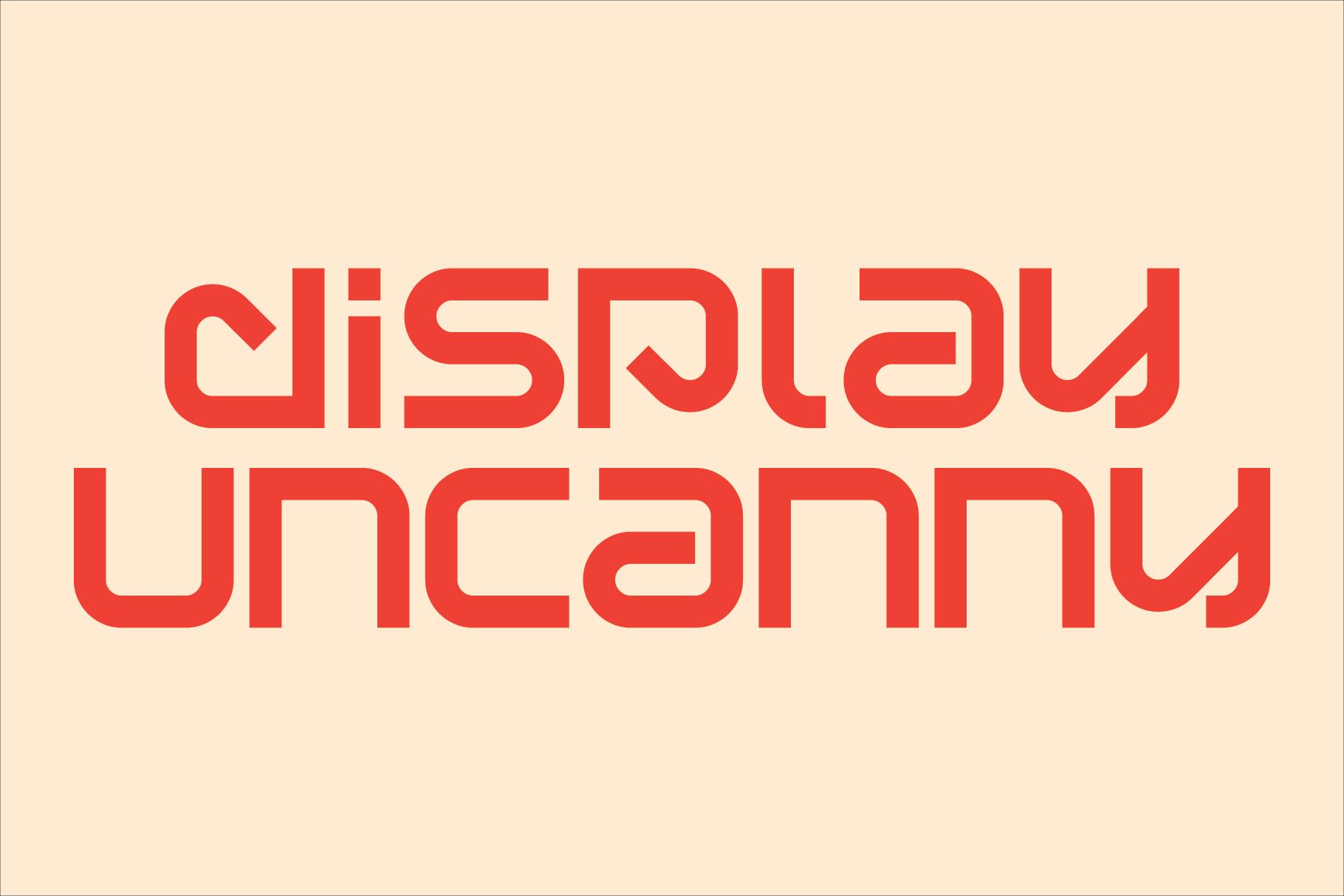
Display Uncanny Font
Display Uncanny is a display font not intended for text use. It was designed specifically for display, headline, logotype, branding, and similar applications. The same A to Z characters are located under the shift+character set and character set keys with the ones under the character set keys reduced in size. It has numbers, dollar, pound and euro signs, and basic punctuation.